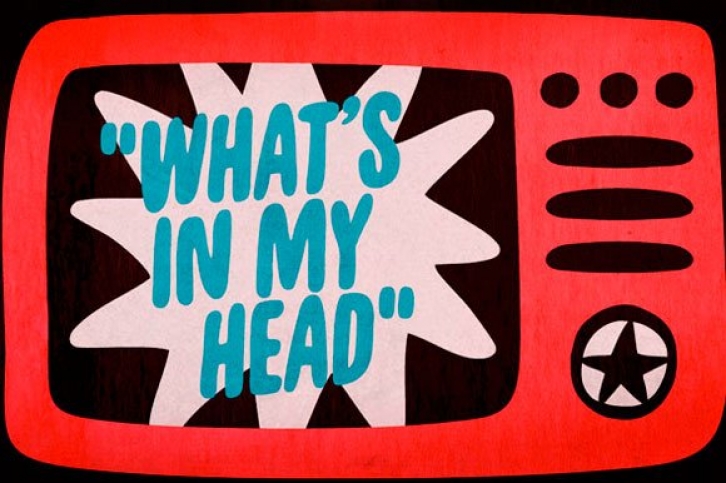
Unpack is a soft and inviting face. It is available in two cuts, upright and slanted, both all-caps with 2 options for each letter for a nice uneven organic look. The family counts also with a picture font loaded with some handy extras like banners, stars and ornaments.
This versatile family greatly fits many usages. Type some food name and you'll get hungry, type a toy and you'll want to play. Don't believe it? You don't even need to unpack it to try!